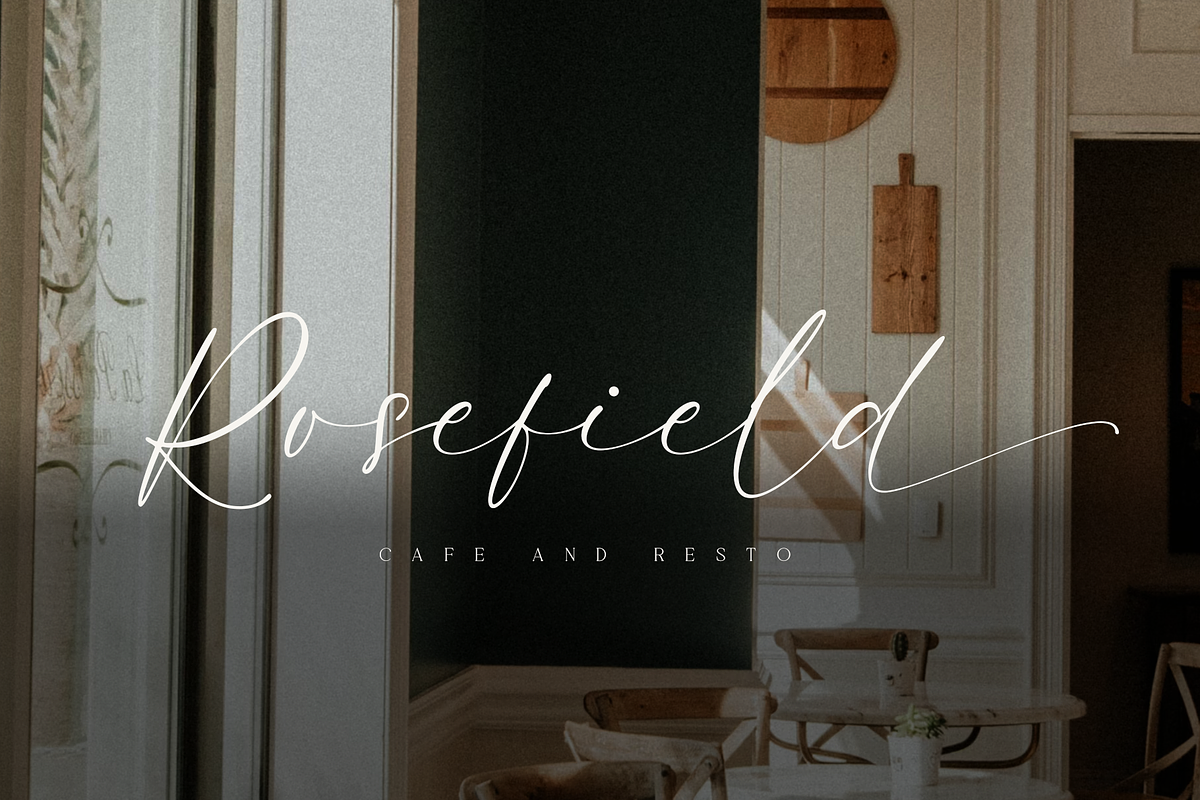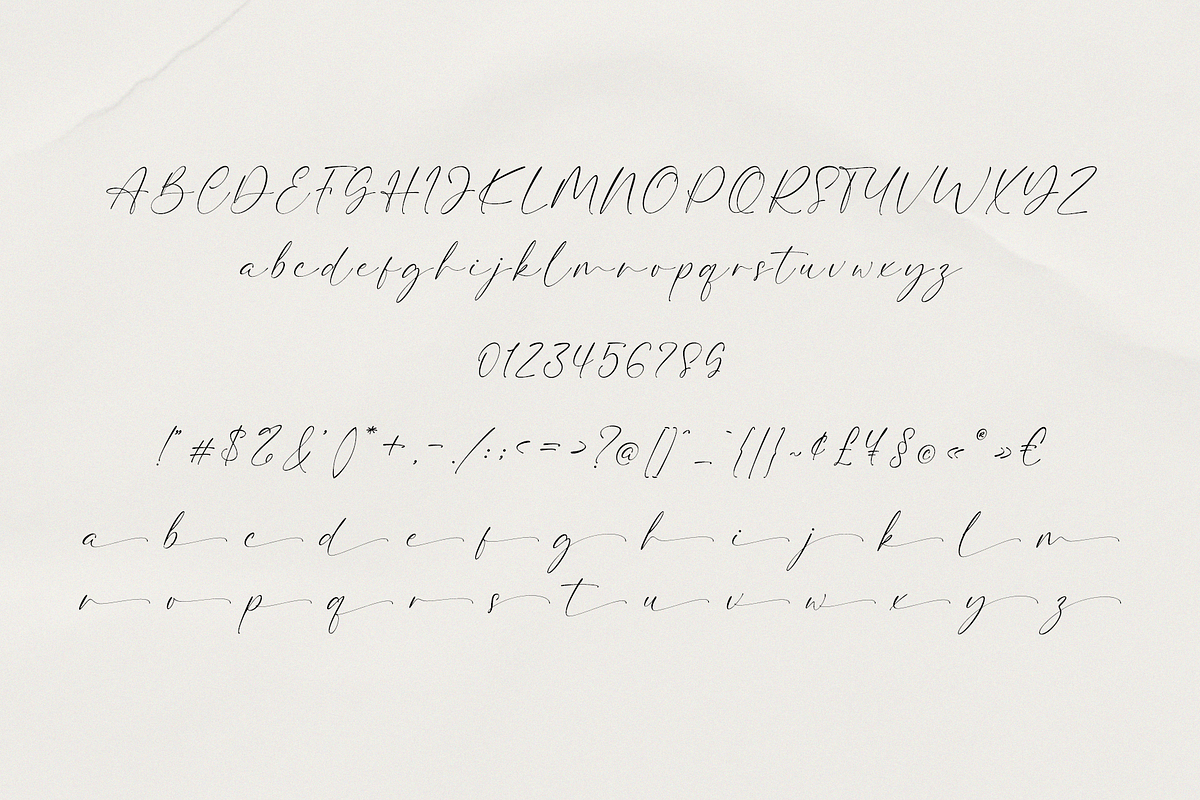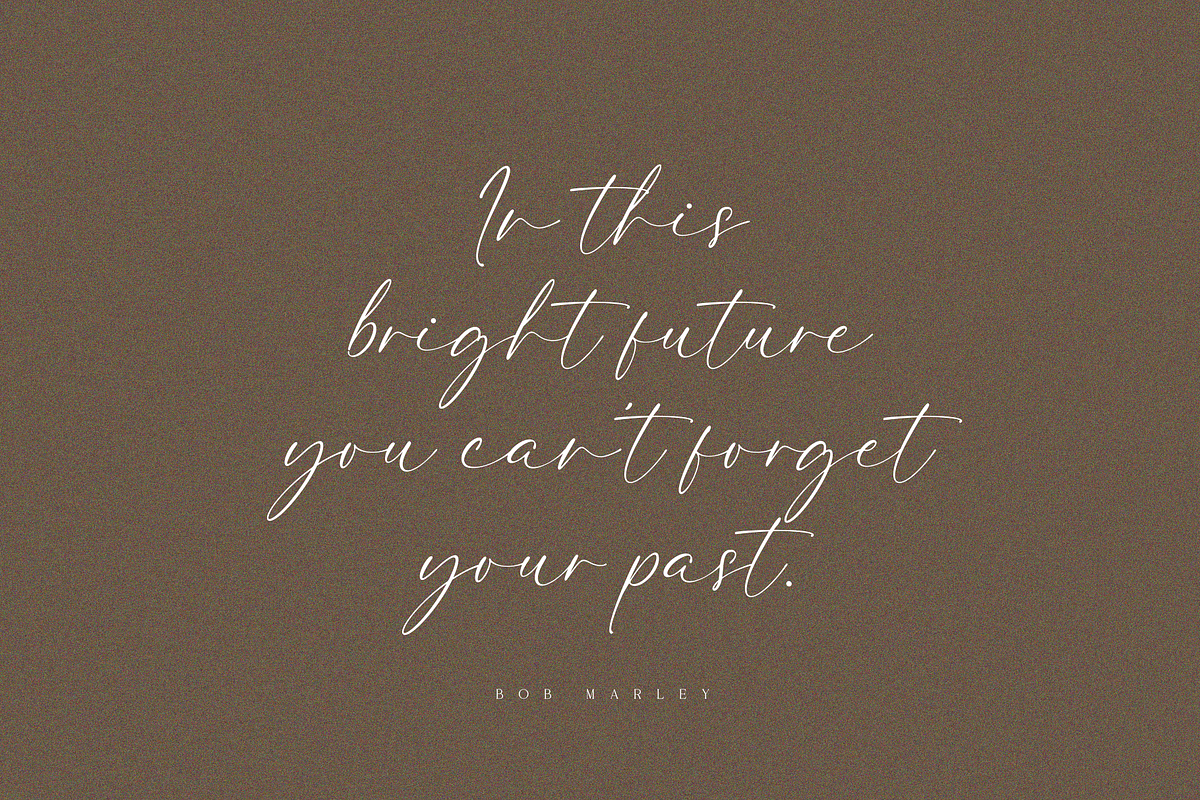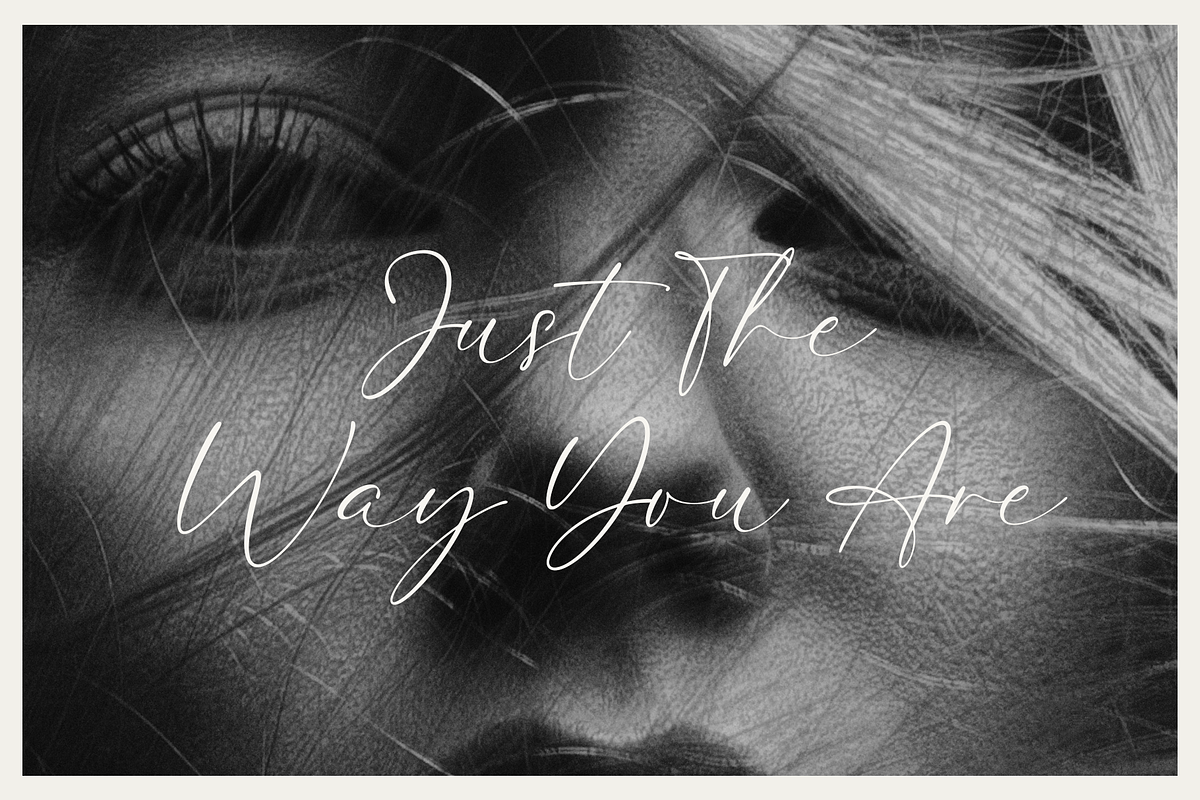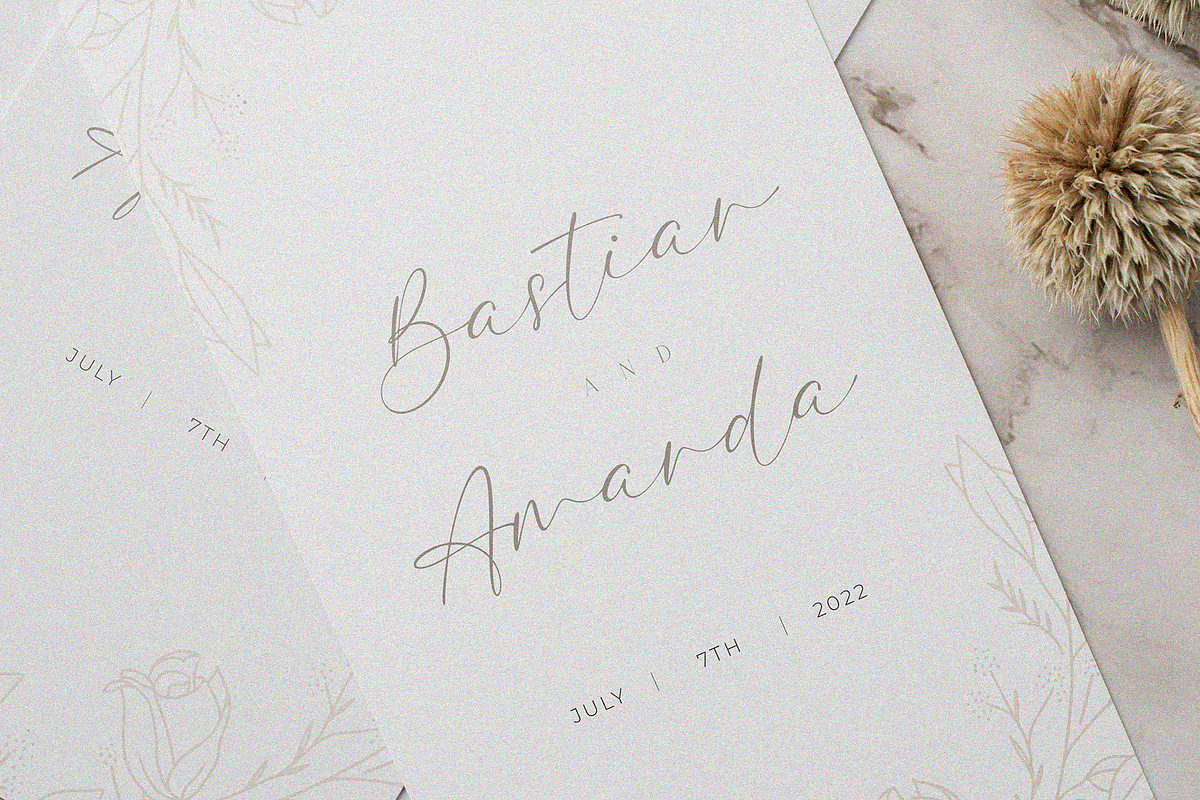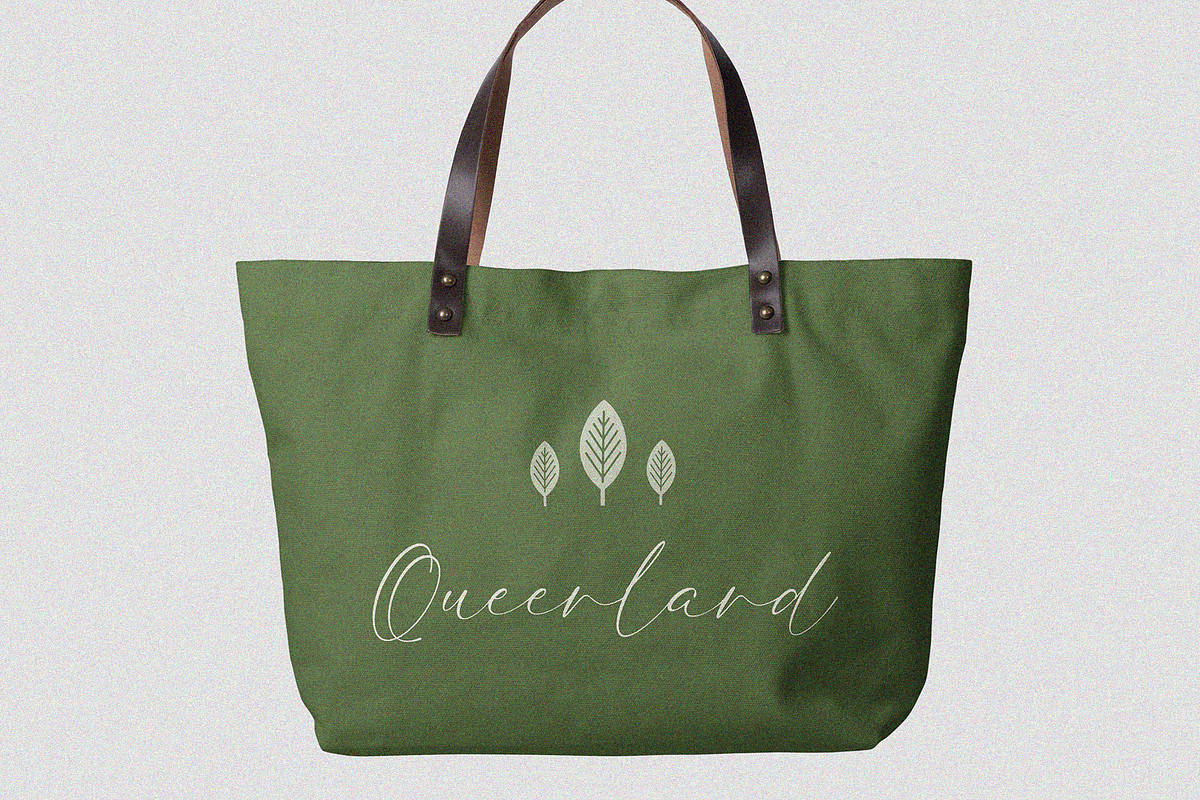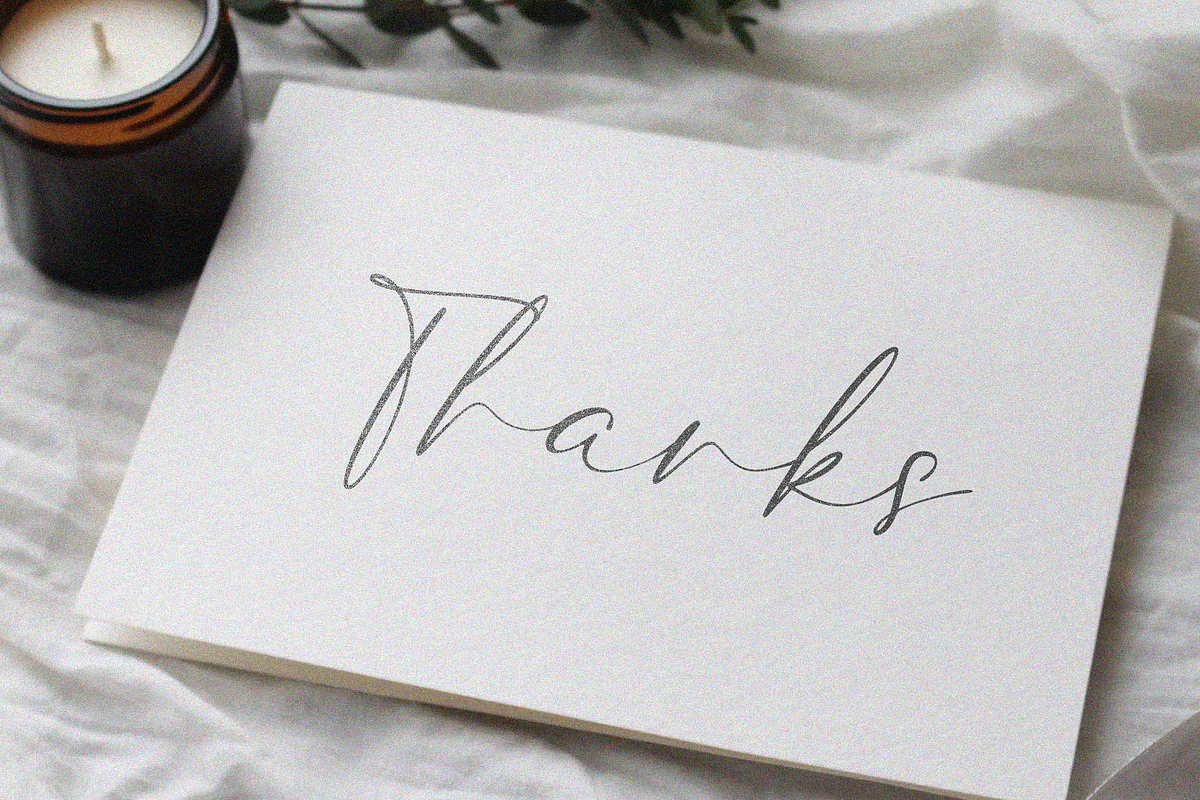
Kaithlyn – Elegant Calligraphy Font
Introducing "Kaithlyn – Elegant Calligraphy Font"
A beautifully crafted script calligraphy font that exudes elegance and sophistication. Ideal for wedding invitations, luxurious branding, and refined logos, Kaithlyn features gracefully flowing, hand-drawn strokes that capture the timeless beauty of classic calligraphy.
The font includes a complete set of uppercase and lowercase letters, numerals, punctuation, and extensive multilingual support. Enhance your designs with Kaithlyn’s elegant ligatures and stunning swashes, adding a touch of personal sophistication.